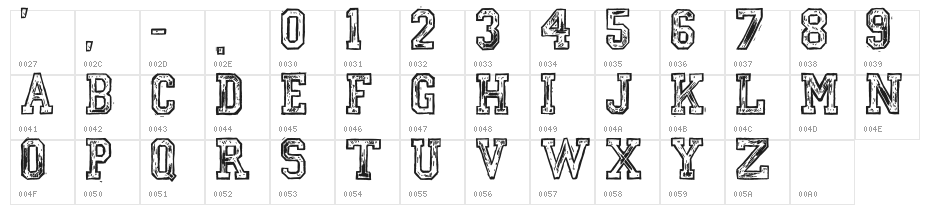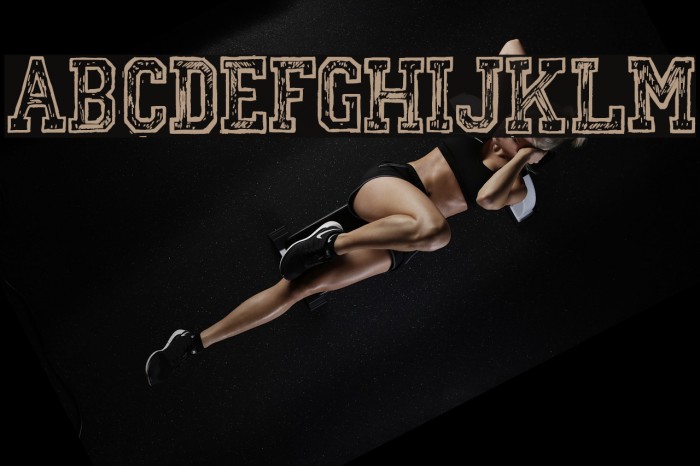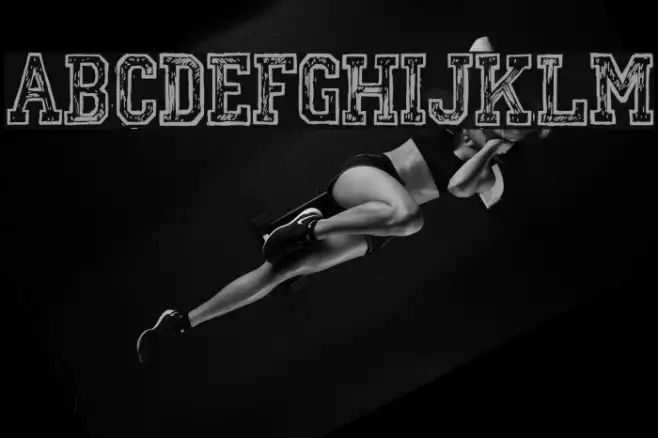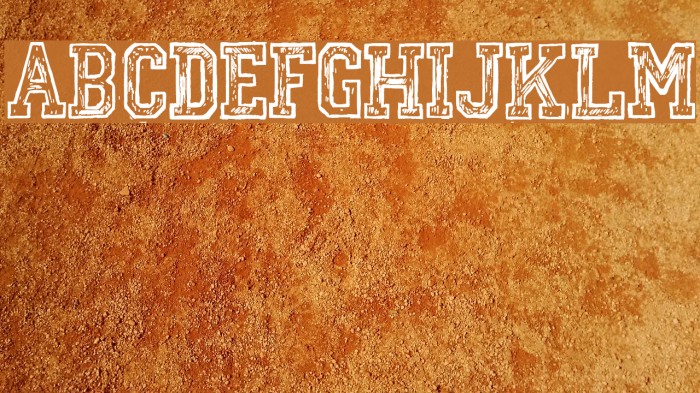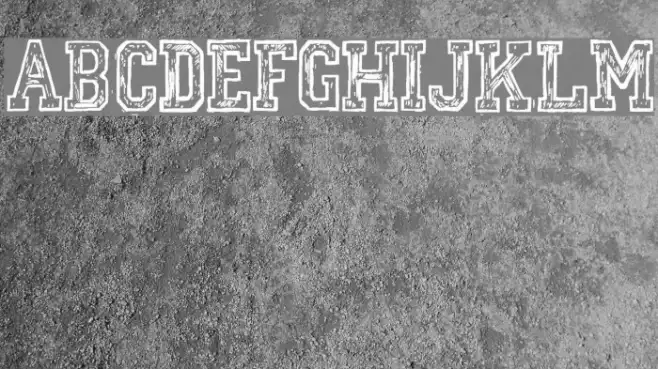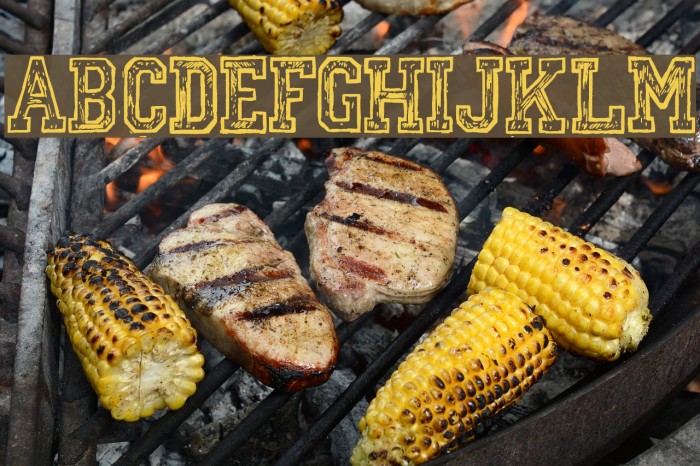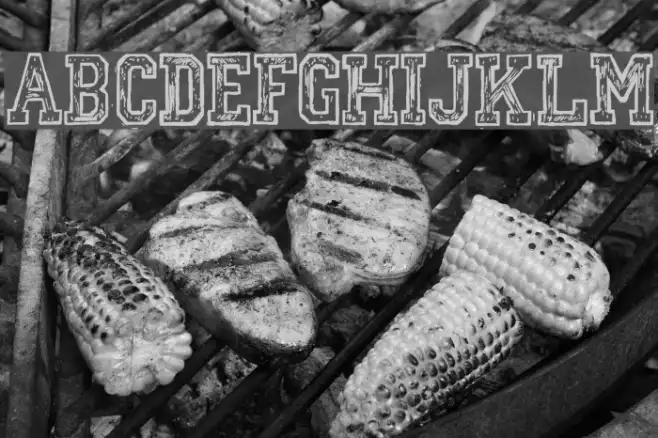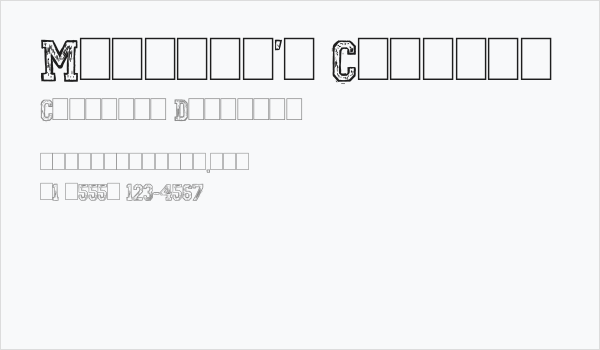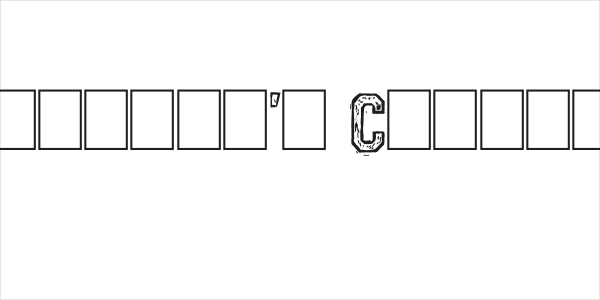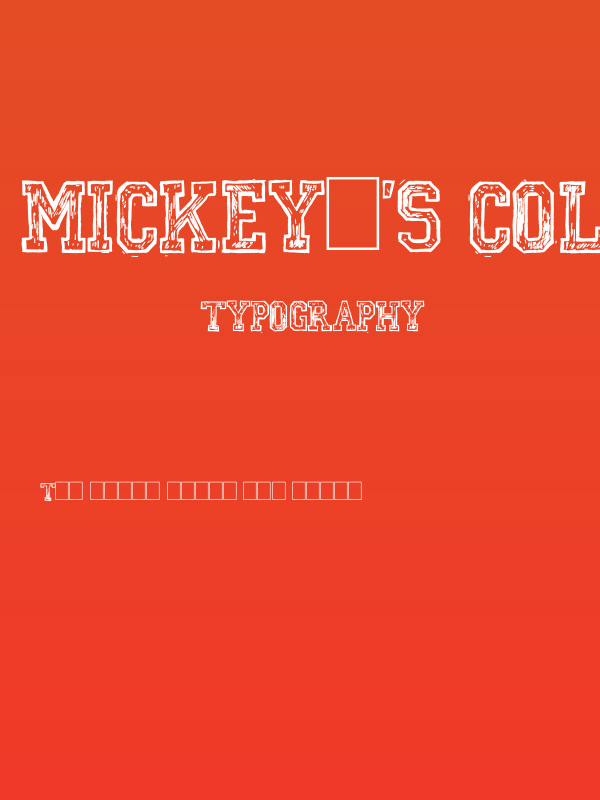
Mickey's College Font
Mickey's College Description
This font features a bold and rugged style with a distressed, textured appearance that gives it a vintage, collegiate feel. The characters are outlined with a thick border, adding to the boldness and making each letter stand out prominently. The uppercase letters are uniform in height, while the numbers maintain a consistent style with the alphabet, ensuring a cohesive look. The font's unique texture and bold outlines make it ideal for projects that require a strong, impactful visual presence. Its decorative nature is perfect for creating eye-catching headlines, posters, or logos that need a touch of nostalgia or a retro vibe.
Overall StyleVintage
Proposed ProjectsPerfect for sports team branding, vintage-themed posters, retro logos, and eye-catching headlines.